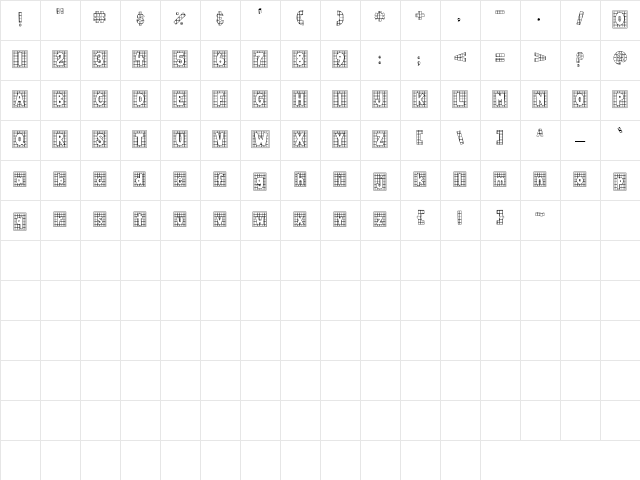
CK Hunting Regular
Design Context for CK Hunting
CK Hunting is a composed and adaptable typeface that performs quietly and consistently across a wide range of design contexts.